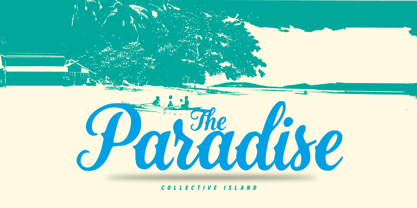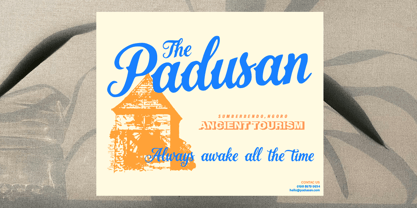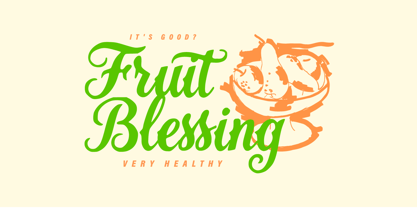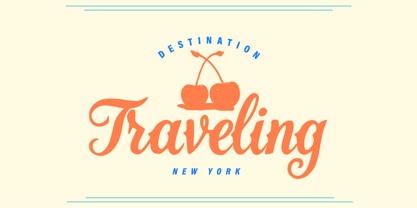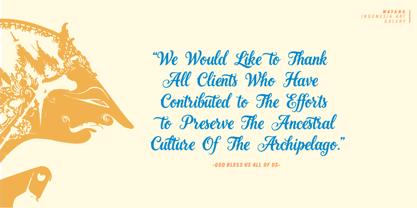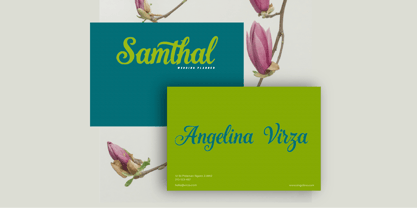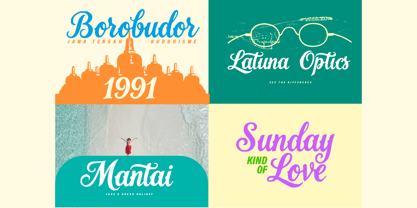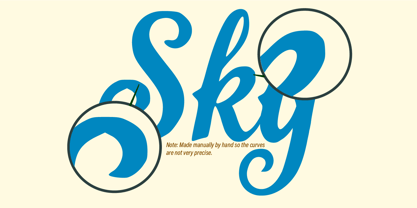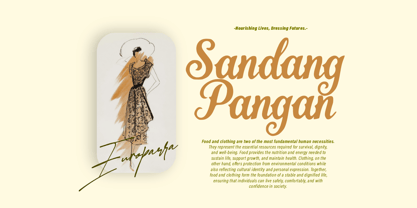
Latuna Gloss
by ryan creative
The Latuna Gloss Font Family was designed by ryan creative and published by ryan creative. Latuna Gloss contains 1 styles.
Latuna Gloss is a script typeface with hand-drawn strokes that give it a natural look. It also features alternates and ligatures. This font can be used for various purposes, such as brand names, wedding invitations, posters, promotional materials, etc. FEATURES: Capital Letters, Lowercase Letters, Foreign Letter Support, Numbers, and Punctuation Alternatives and Ligatures Simple installation Accessible in Adobe Illustrator, Adobe Photoshop, Adobe InDesign, and even Microsoft Word Full access without additional design software. Latuna Gloss is encoded with PUA Unicode, which allows full access to all additional characters without the need for special design software. Mac users can use Fontbook, and Windows users can use Character Maps to view and copy any additional characters for pasting into their favorite text editor/application. Thanks for visiting :)